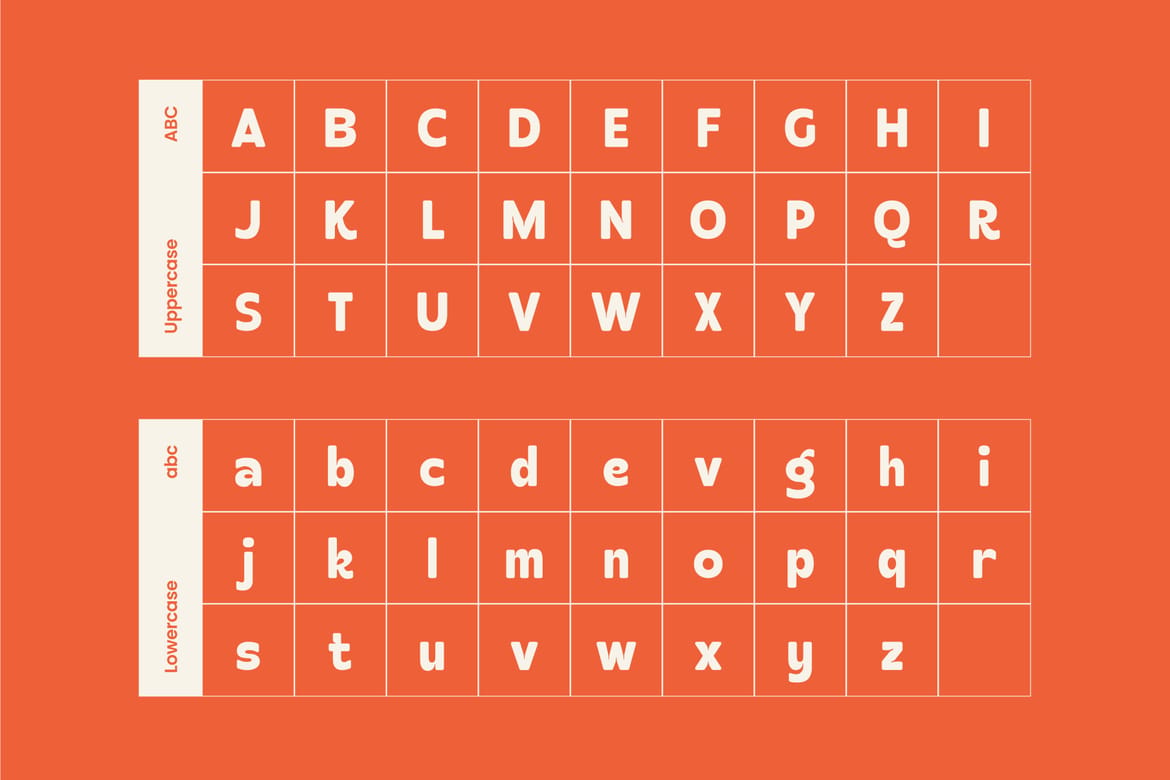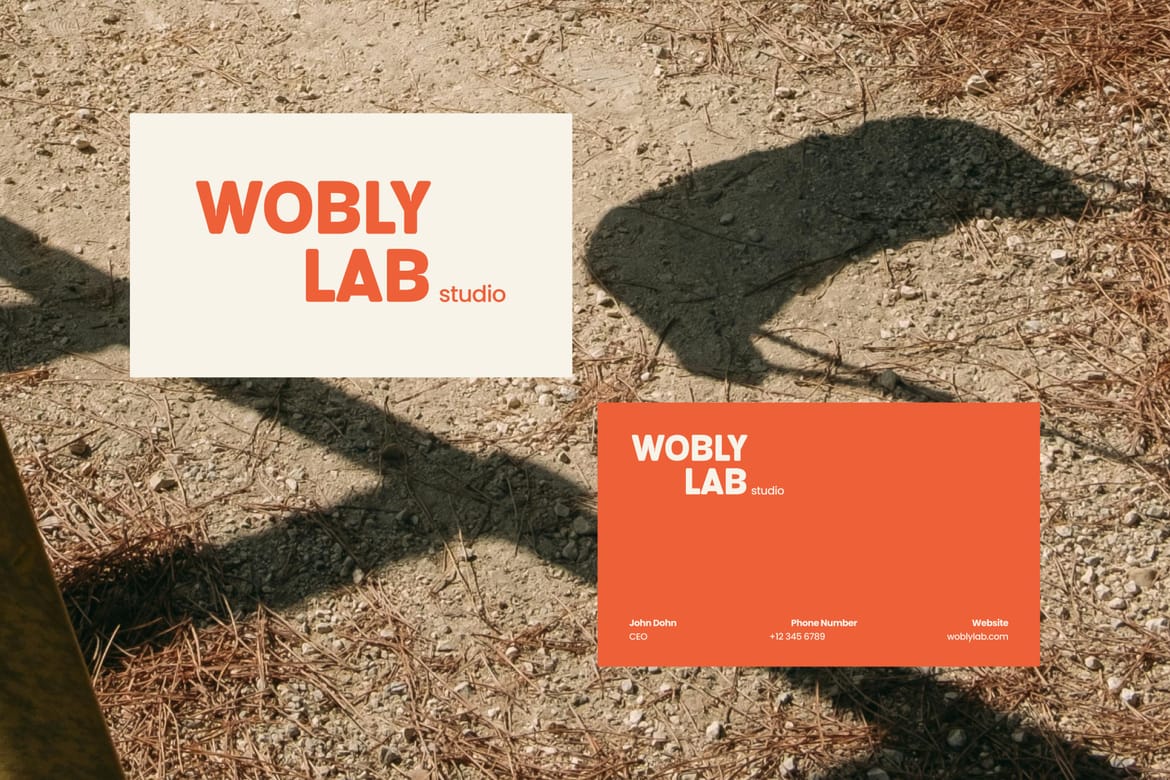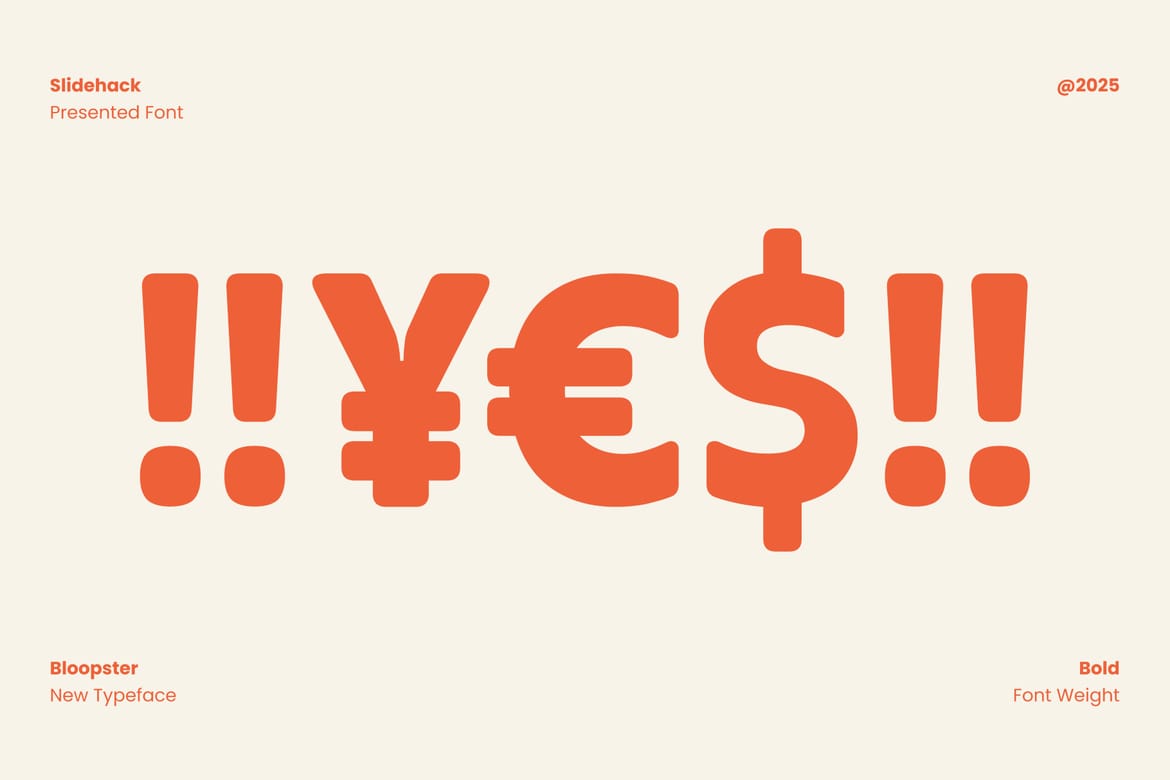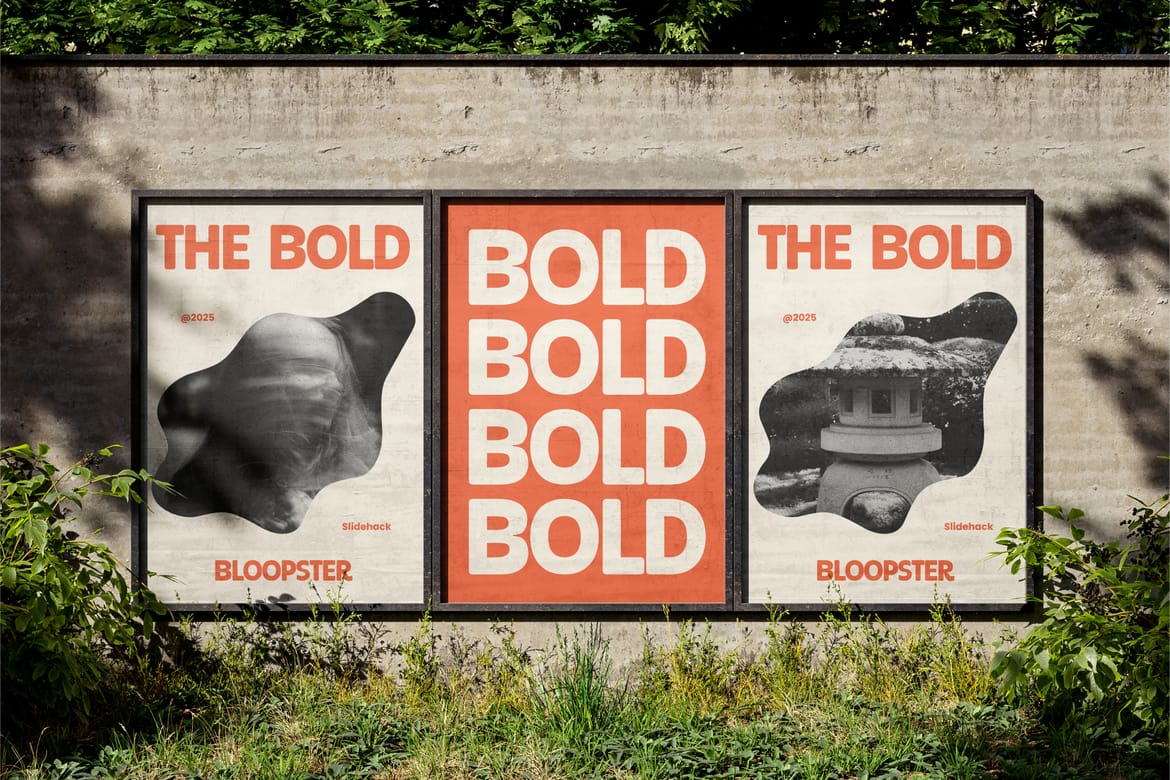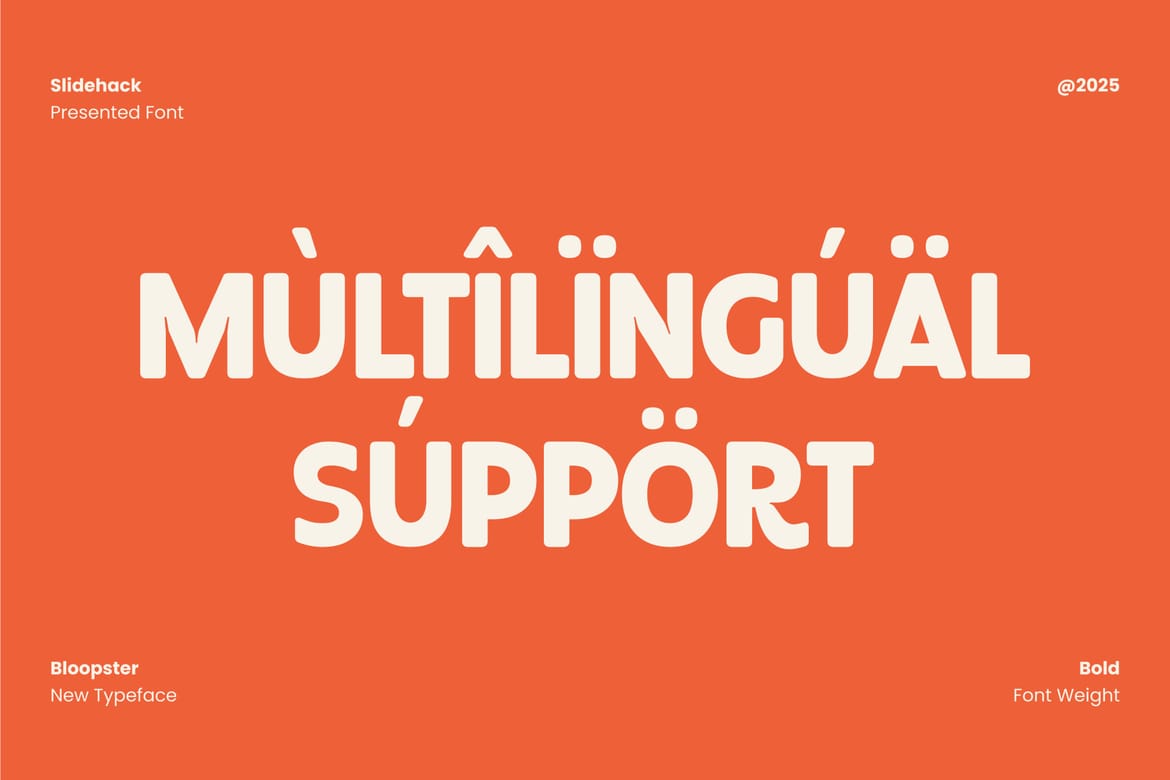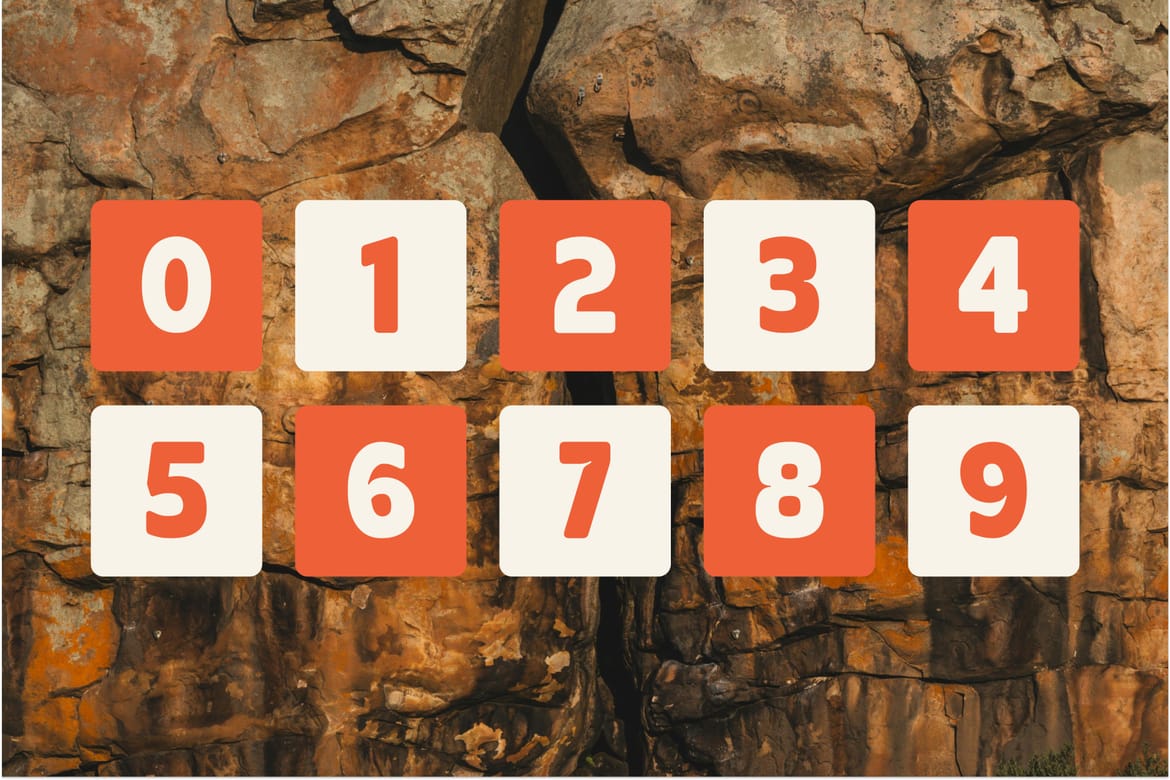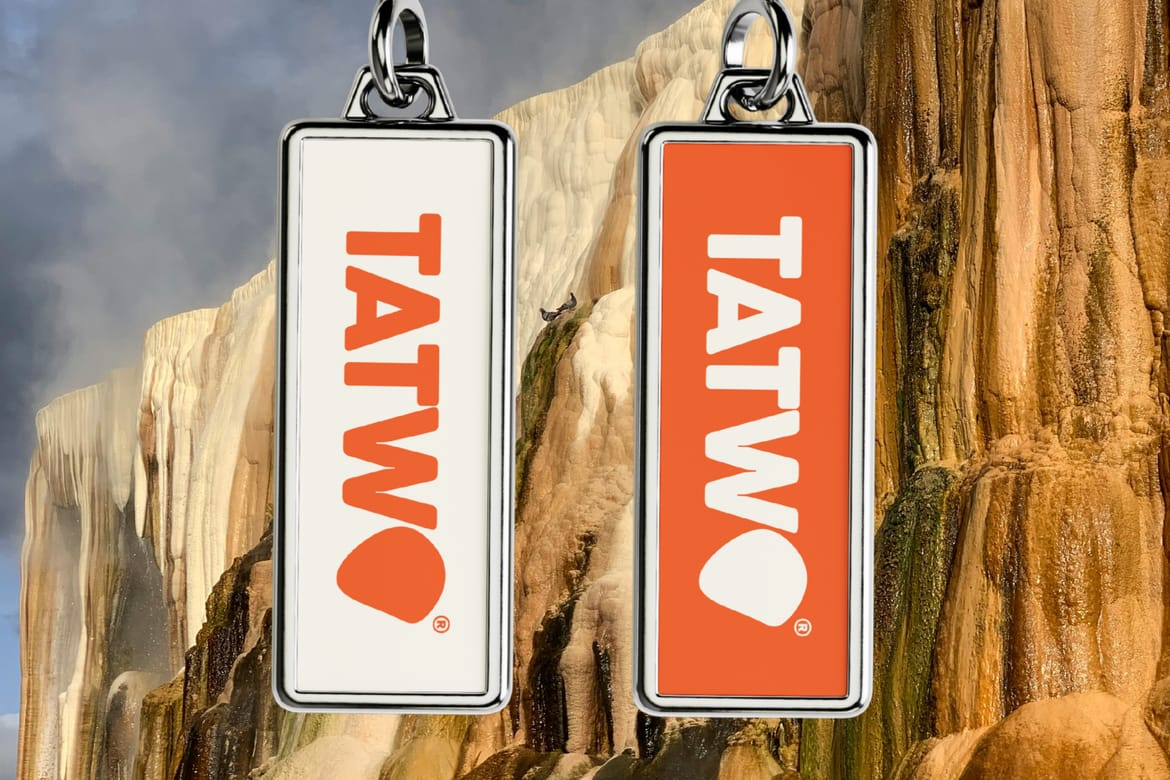
Bloopster is a fun, rounded display font with a bold, friendly personality, perfect for branding, headlines, kids’ content, and playful projects. With smooth curves and a retro-modern feel, Bloopster adds charm and approachability to your designs. Great for posters, packaging, and logos that need to pop with character.
Bold modern display with a clean retro touch
Perfect for branding projects, packaging, and standout headline designs
Thick rounded letterforms that deliver a strong and friendly visual presence